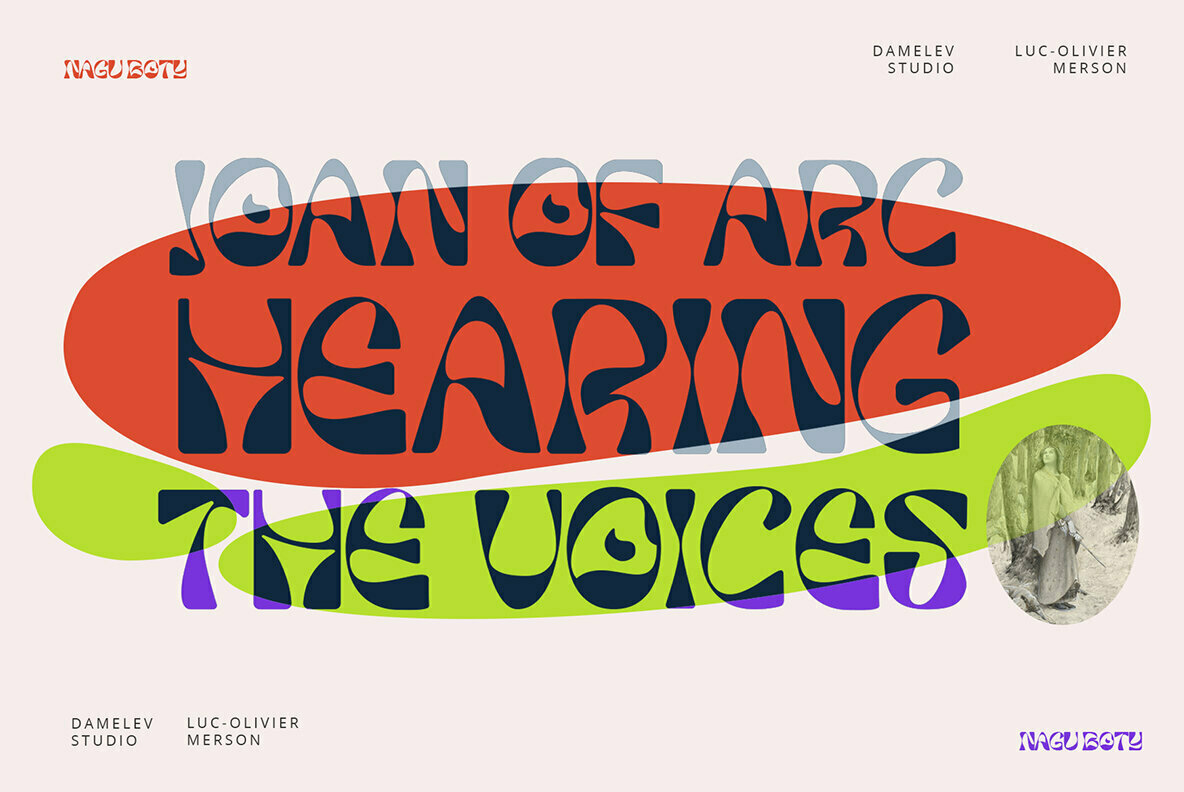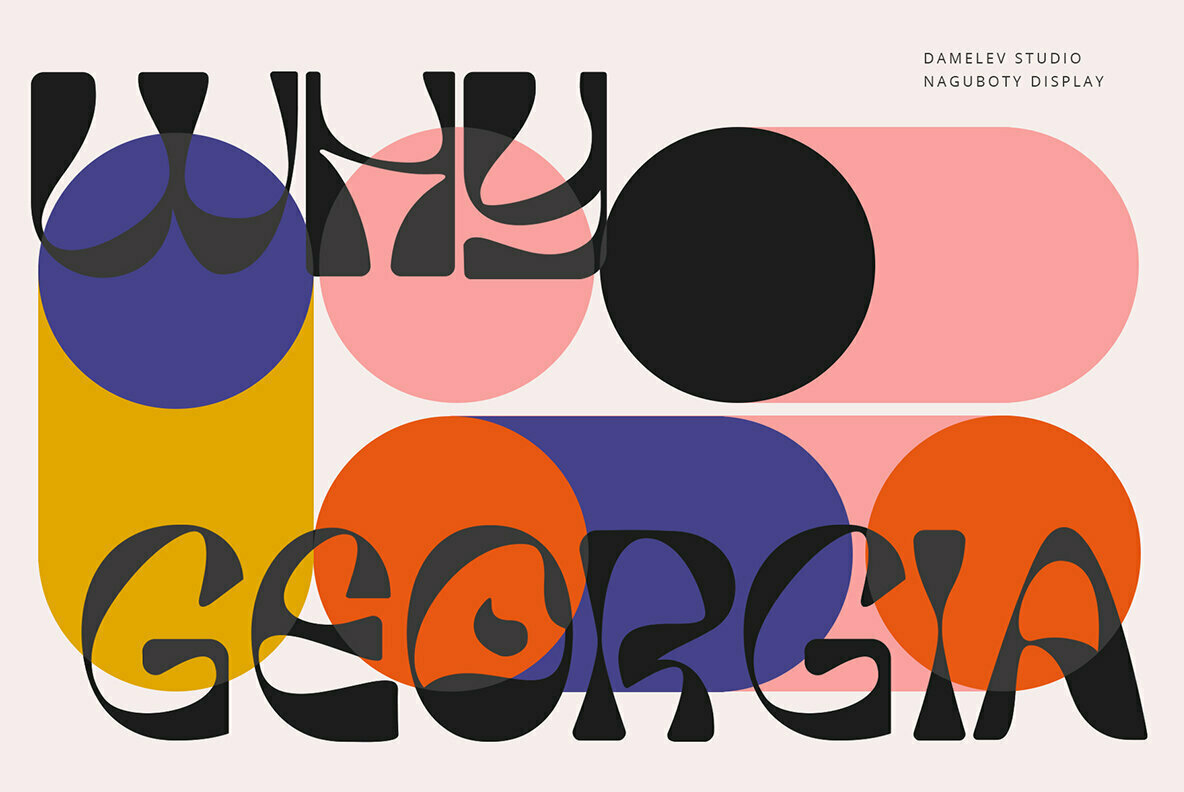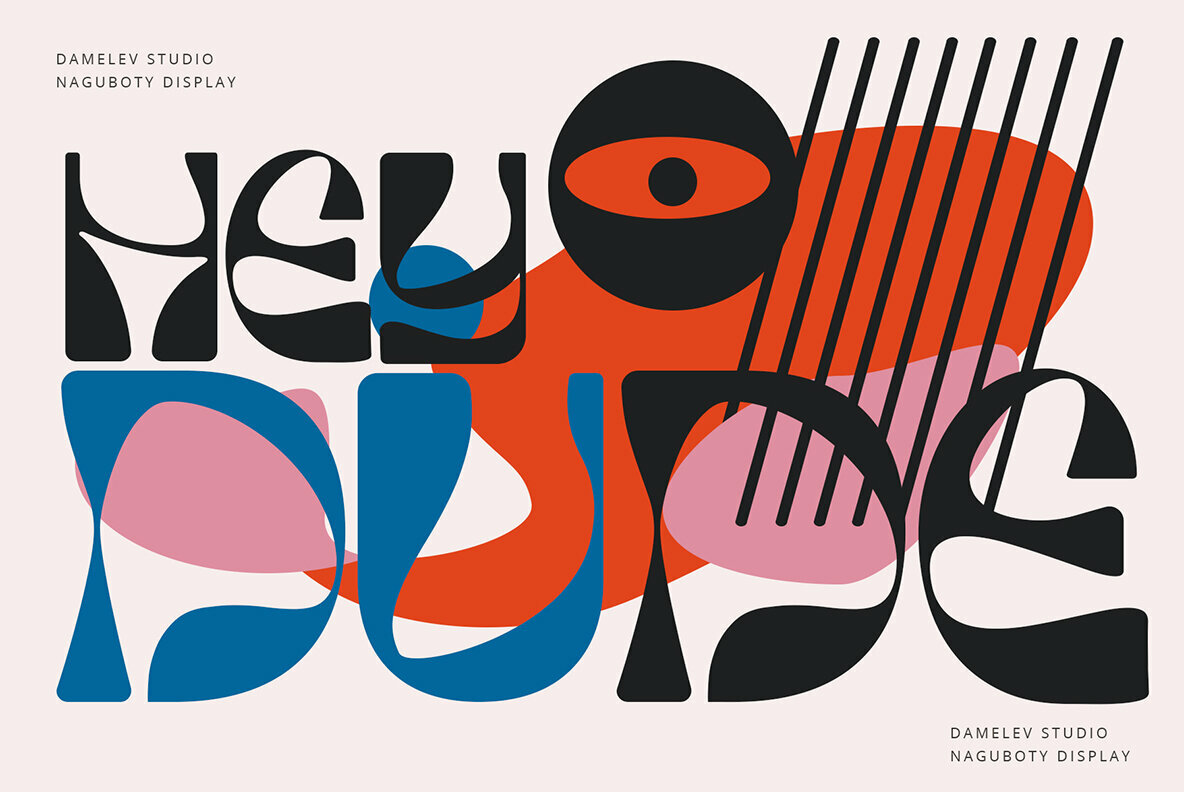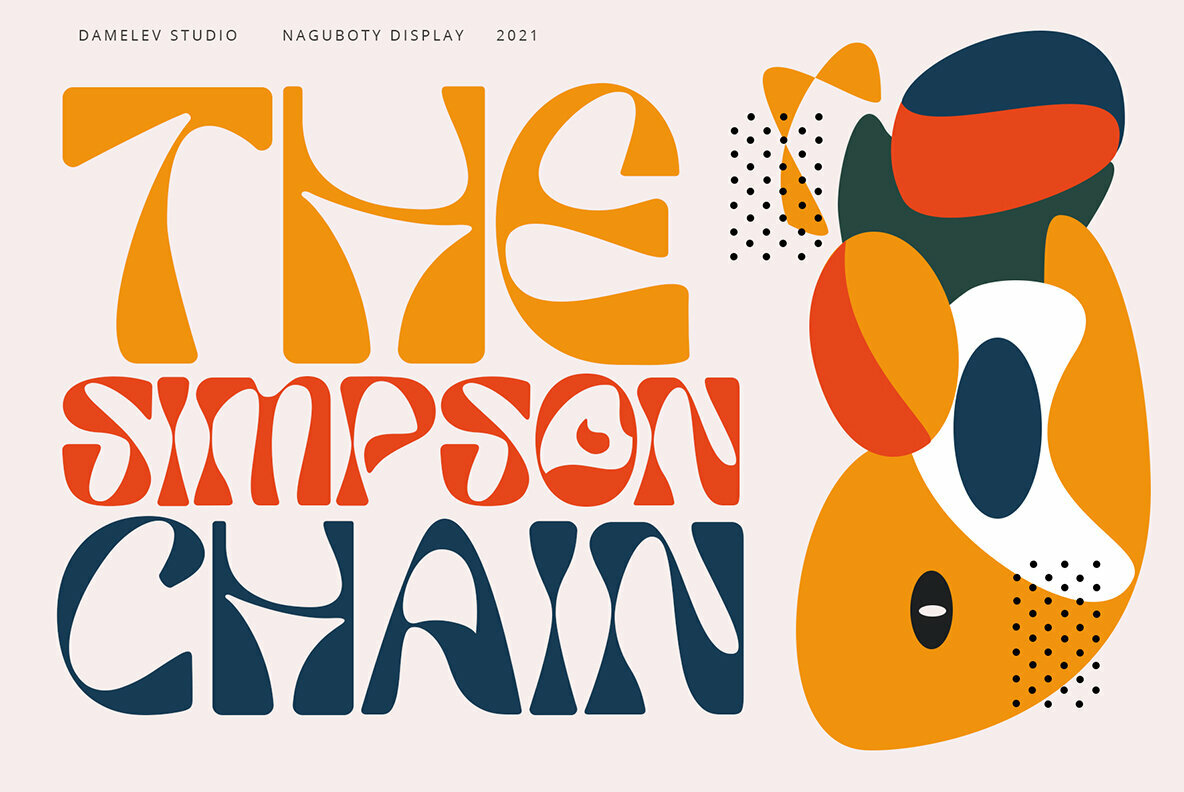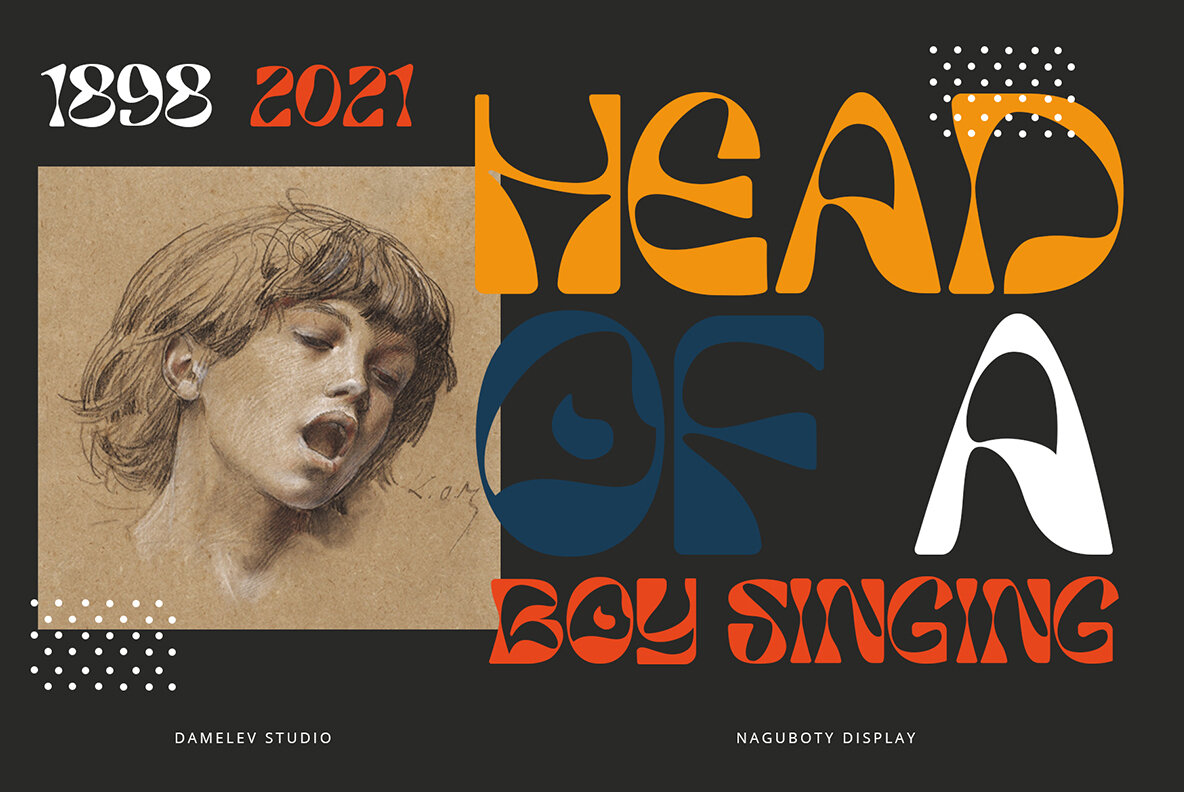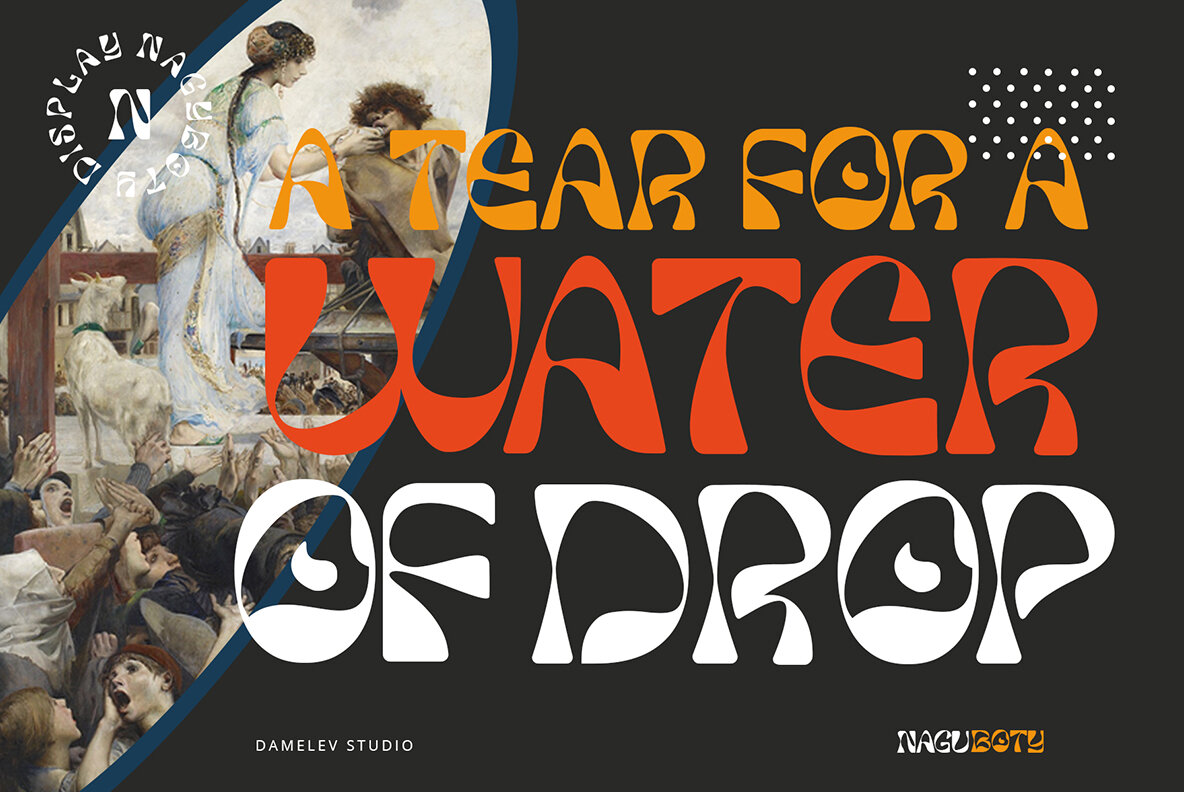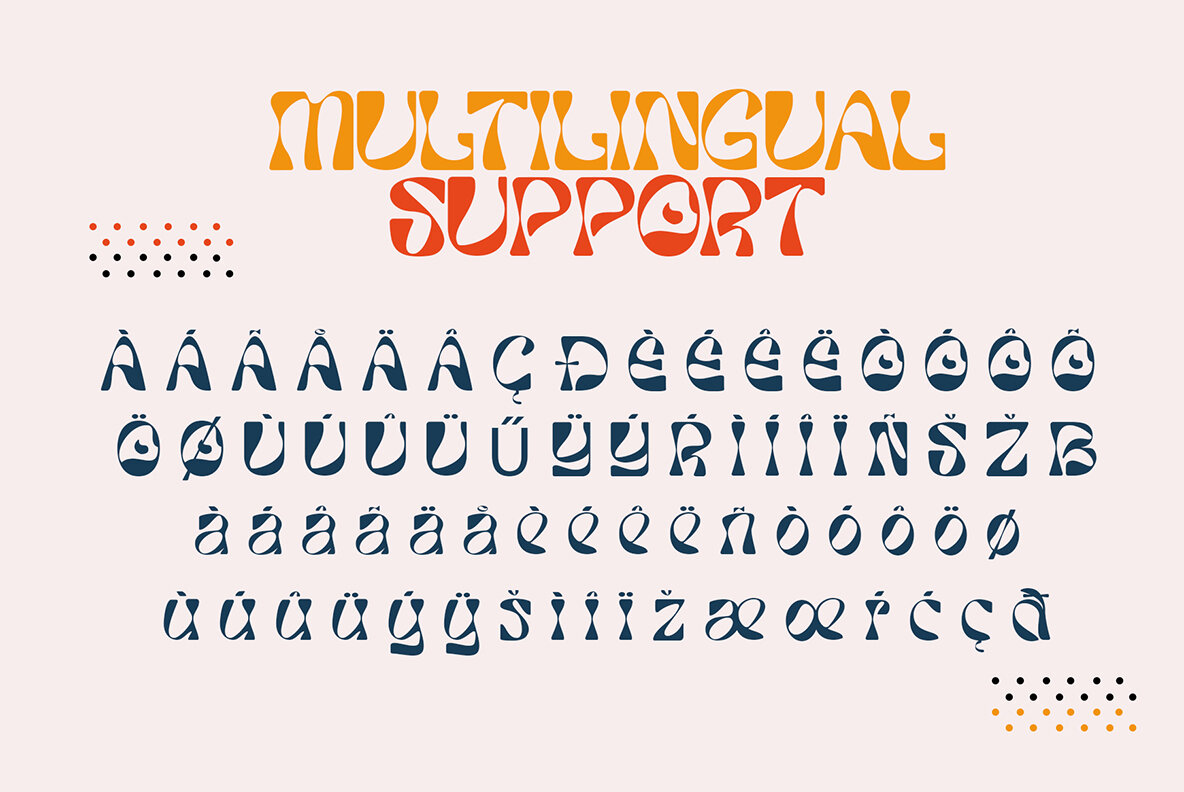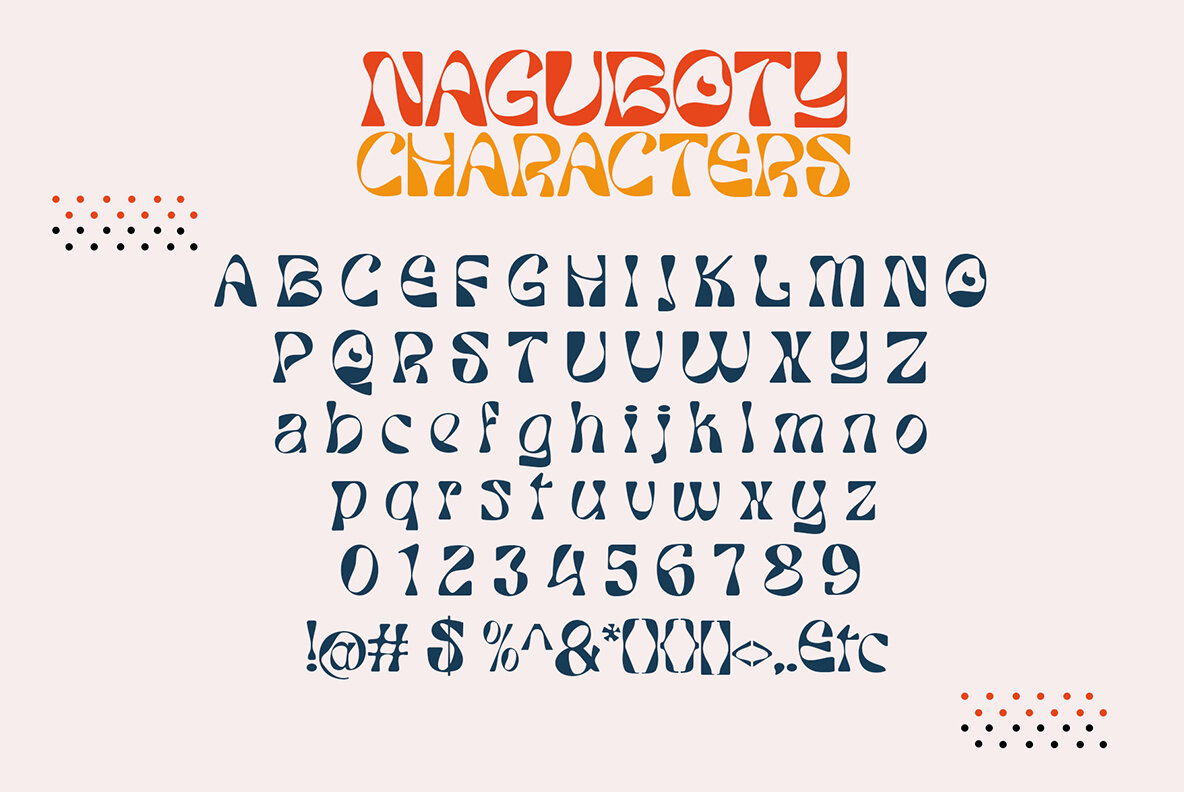
Naguboty Font
Naguboty Regular
Naguboty Display is a trendy font with a twisted shape style, Merson combines blackletter and decorative styles to make it look very trendy, is perfect for your design and make your designs look even bolder.